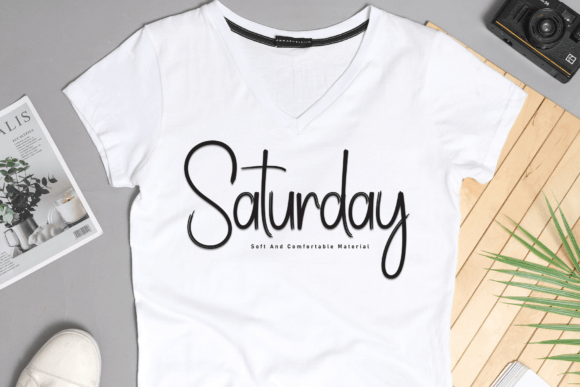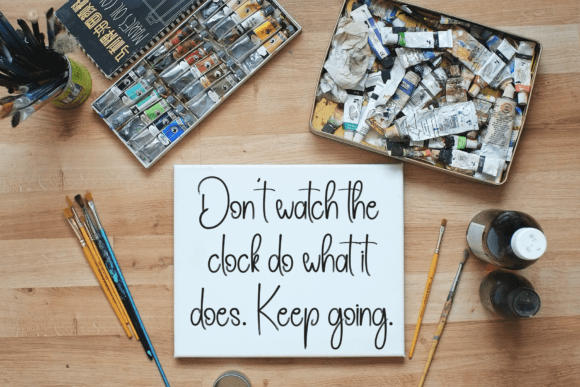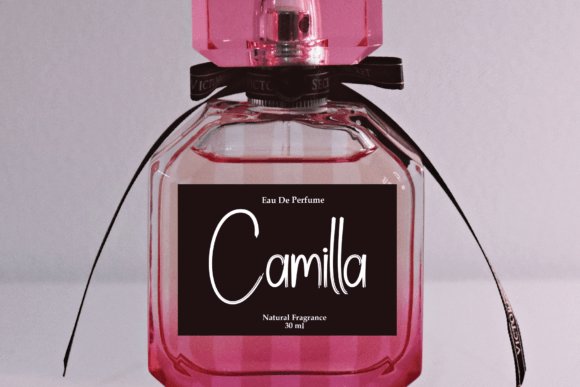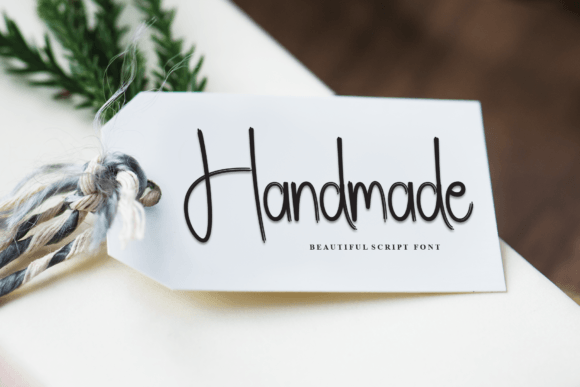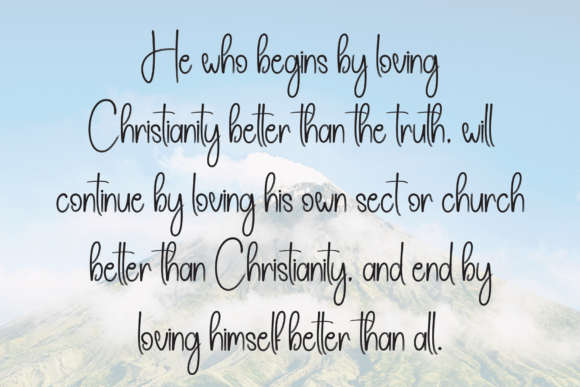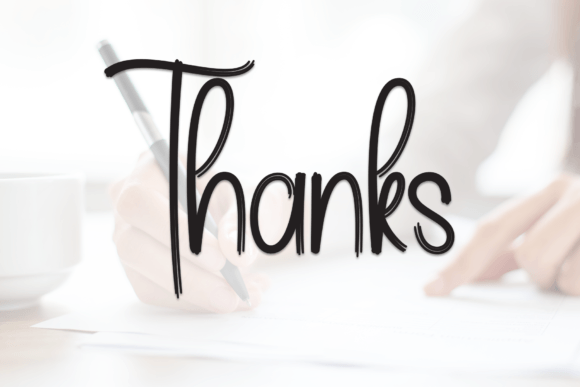
The Perfect Font for Your Creative Masterpiece
Have you ever stumbled upon a beautiful quote or phrase on social media, and immediately thought, ‘I wish I could create something like that’? Maybe it was a stunning Instagram post, a beautifully designed business card, or a handwritten recipe on a chalkboard. Whatever it was, it sparked a creative idea in your mind, and now you’re on a mission to bring it to life.
That’s where the Butter Signature Font comes in – a magical script font carefully created with a touch of elegance. This versatile font is perfect for designers looking to add a personal touch to their projects. Whether you’re designing a brand identity, creating social media graphics, or crafting DIY projects, the Butter Signature Font will turn your creative ideas into true pieces of art.
Butter Signature Font Key Features
- Font Style: Elegant, modern script font with a touch of sophistication.
- Unique Characteristics: Features a unique, flowing connection between letters and a subtle flair at the end of strokes.
Designer Review: Butter Signature Font
Overall, I’m impressed with the Butter Signature Font. It’s a clean and modern script font that works well for creating elegant, high-end designs ✨. The font’s smooth curves and subtle flair give it a sophisticated feel that’s perfect for branding and advertising projects.
The Butter Signature Font has a lot of great features, including:
- A sleek, modern aesthetic that’s perfect for creative industries
However, I do have a few concerns about the font’s limitations ⚠️:
- It may be too ornate for some designs, and could be overwhelming if used in large quantities
- The font’s ligatures can be a bit finicky, and may not work well in all situations
- The font is only available in a single weight, which may limit its versatility
Overall, I think the Butter Signature Font is a solid choice for designers looking to create high-end, elegant designs. While it may have some limitations, its unique aesthetic and high-quality features make it a valuable addition to any design toolkit.
The Butter Signature Font is ideal for creating elegant and sophisticated designs, such as:
– Branding materials and logos
– Signature cards and business cards
– Personalized gifts and stationery
– Try using a combination of bold and regular font styles to create a visually appealing design.
Alternatives to Butter Signature Font for Designers
Great Vibes is a beautiful, cursive script font perfect for adding a touch of elegance and sophistication to your designs. It’s ideal for use in titles, headings, and quotes where a more personal and emotive tone is desired.
Compared to Butter Signature Font, Great Vibes has a more fluid and dynamic feel, making it suitable for a wider range of applications. While Butter Signature Font is more playful and casual, Great Vibes is more refined and sophisticated.
Alex Brush is a handwritten font with a warm and inviting feel, making it perfect for use in invitations, greeting cards, and other personal stationery. It’s also suitable for use in logos and branding where a more unique and creative tone is desired.
Compared to Butter Signature Font, Alex Brush has a more organic and hand-drawn feel, giving it a unique and personal touch. While Butter Signature Font is more polished and refined, Alex Brush is more raw and emotive.
Carolyna Pro is a modern and elegant script font perfect for use in titles, headings, and logos where a more sophisticated tone is desired. It’s also suitable for use in branding and advertising where a more professional and polished tone is required.